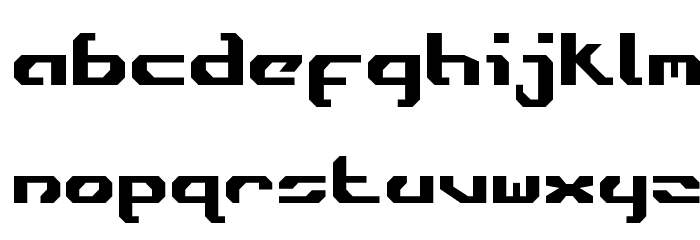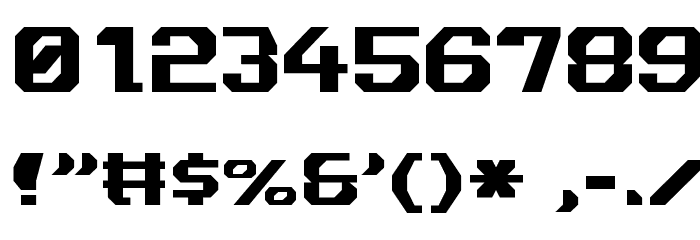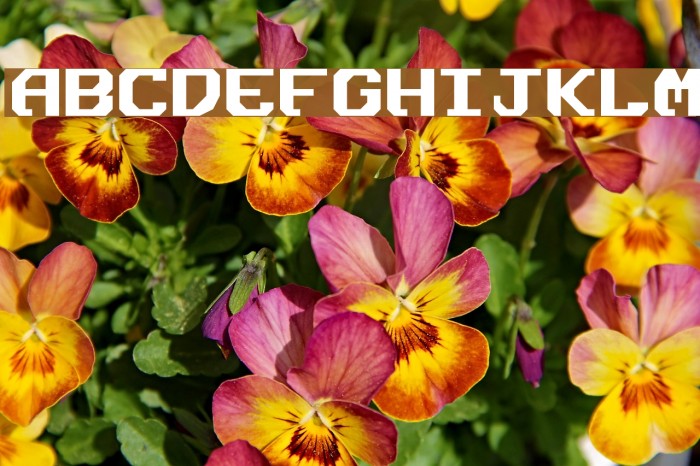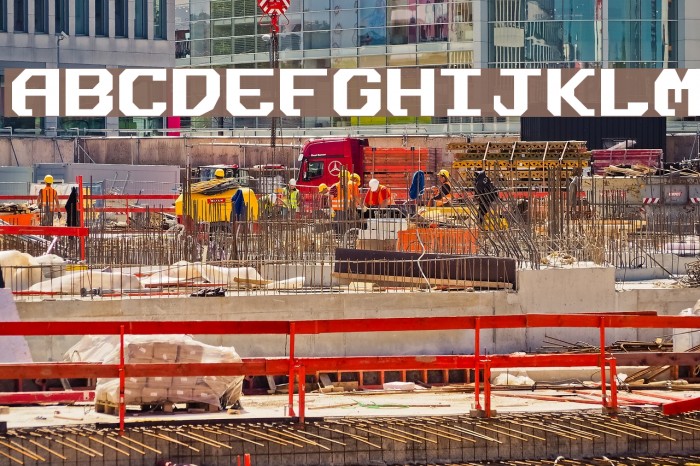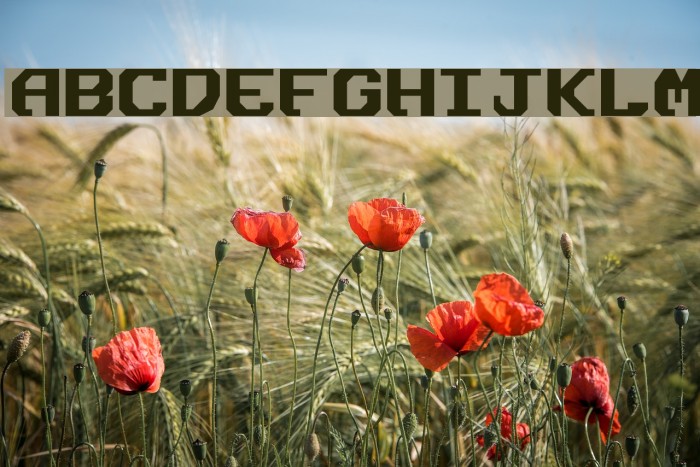
Ensign Flandry Font
This font features a bold, geometric design with angular, sharp edges that give it a futuristic and industrial feel. The characters are constructed with a consistent thickness, creating a uniform appearance across both uppercase and lowercase letters. The numbers and special characters maintain this aesthetic, ensuring a cohesive look throughout. The font's unique style is characterized by its blocky, stencil-like forms, making it stand out in any design. Its distinctiveness is further enhanced by the tight character spacing, which adds to its compact and impactful presence.
A bold, geometric font with angular, industrial design and tight spacing.
- Proposed Projects: Ideal for sci-fi themed projects, video game titles, posters, and branding that requires a modern, edgy look.
- Character Spacing: Tight
- Overall Style: Futuristic